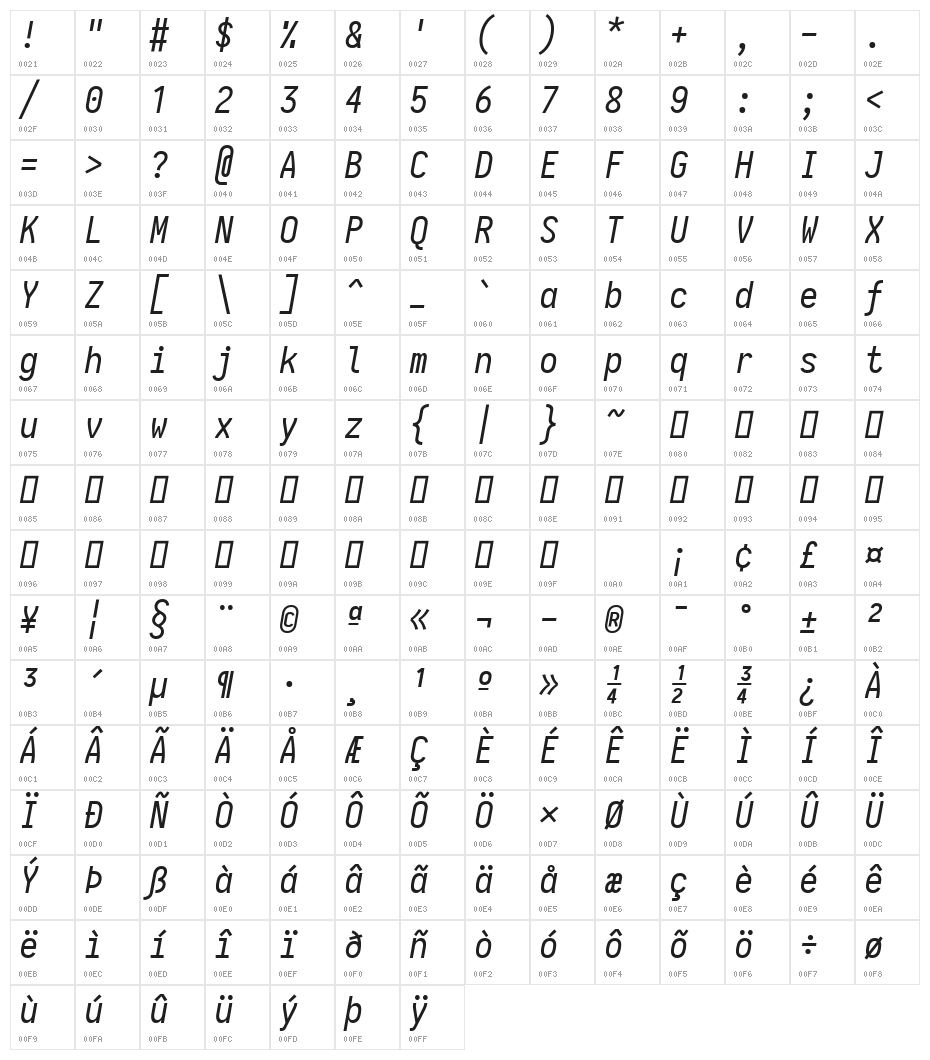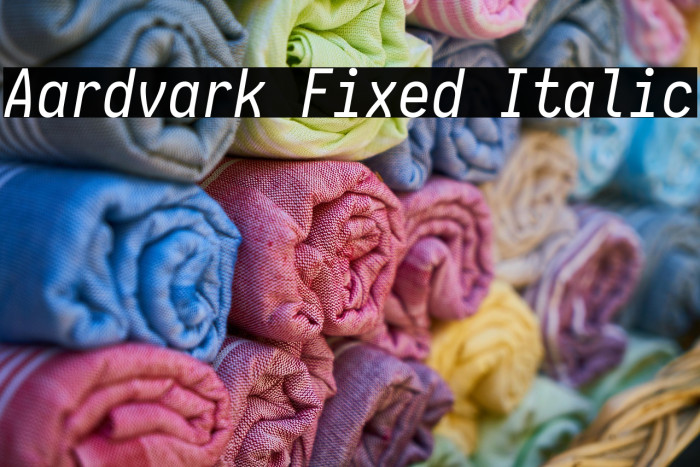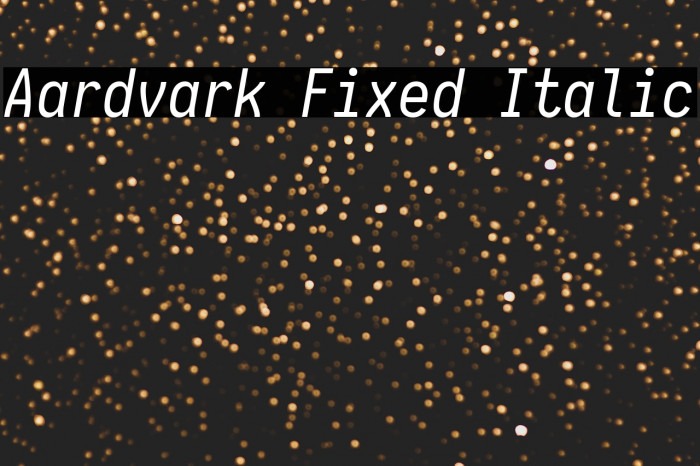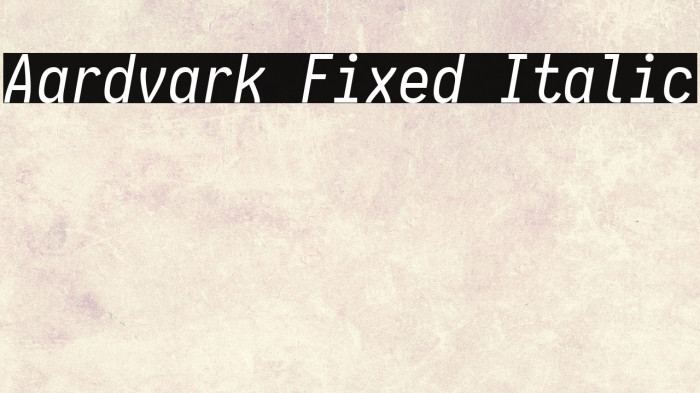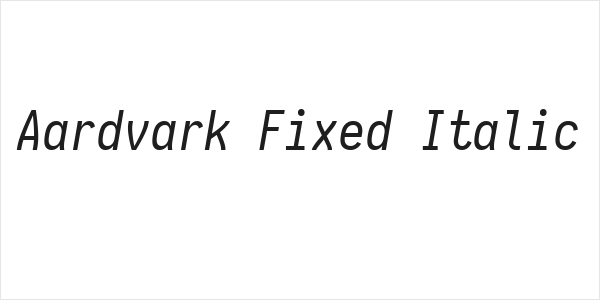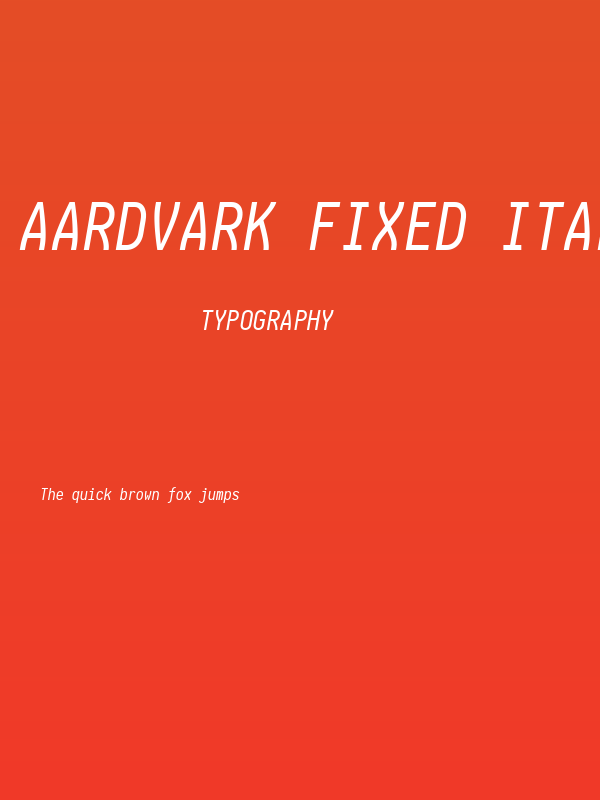
Aardvark Fixed Italic Font
Aardvark Fixed Italic Description
This font features a clean and modern design with a slight italic slant, giving it a dynamic and forward-moving appearance. The characters are monospaced, ensuring uniformity in width, which is ideal for coding and technical documents. The strokes are consistent in thickness, providing a medium contrast that enhances readability. The font maintains a balance between simplicity and style, making it versatile for various applications. Its geometric shapes and clear lines contribute to a professional and polished look, suitable for both digital and print media.
Use CaseCoding, Technical documents, Branding
Proposed ProjectsIdeal for coding, technical documents, modern branding, and digital interfaces.